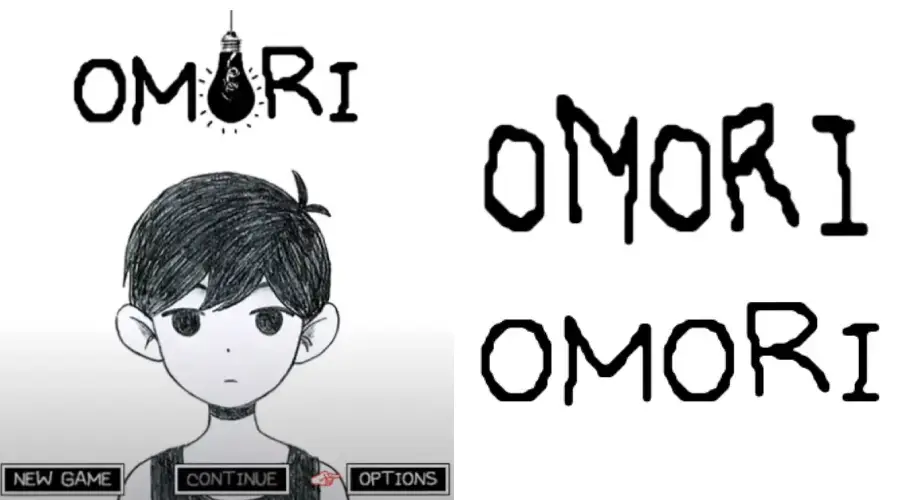
Quick answer: OMORI uses distinctive handwritten game lettering associated with OMOCAT’s visual identity. The OMORI-1 and OMORI-2 files in this preview reproduce two familiar in-game text moods, but game-bundled assets are not automatically open fonts for unrestricted commercial use.
The two styles serve different emotional purposes: one reads like casual handwritten dialogue, while the more unstable treatment supports darker scenes. That contrast is central to the game’s visual storytelling and is more useful than treating “the OMORI font” as a single neutral typeface.
Preview OMORI-1 and OMORI-2
Enter the same sentence in both styles. Compare readability, spacing, and emotional tone before choosing one; the darker style can become difficult to read in long passages or at small sizes.
How OMORI uses typography
OMOCAT’s official portfolio identifies OMORI as a game designed, written, illustrated, programmed, and produced by OMOCAT. The handwritten lettering fits that authored, illustrated world and helps text feel like part of the artwork rather than a generic interface layer.
The standard style works best for dialogue, captions, and friendly scenes. The distorted alternative is more effective as an occasional accent for fear, instability, or Black Space-inspired compositions. Using it everywhere removes the contrast that makes it powerful.
A note about the two OMORI font files
Original FreeFontsVault comparison using the two stored OMORI files and role-based labels.
OMORI-1
The clearer handwritten option for short dialogue, headings, and fan-made mockups. Keep line lengths modest because irregular handwritten spacing can tire readers in dense paragraphs.
OMORI-2
The more unsettling alternative for horror-oriented words or short effects. Use it sparingly and test every character because distortion can reduce legibility.
How to create an OMORI-style text panel
1. Choose OMORI-1 for normal dialogue or OMORI-2 for a deliberately unstable moment.
2. Use short sentences and a generous font size so the handwriting remains readable.
3. Try dark text on white for ordinary scenes and reversed or high-contrast colors for darker scenes.
4. Leave more line spacing than you would with a regular sans serif.
5. Export a test image and inspect punctuation, numbers, and uncommon characters before final use.
Frequently asked questions
What font does OMORI use?
OMORI uses custom handwritten game lettering. OMORI-1 and OMORI-2 reproduce two recognizable text moods used by the game community.
Why are there two OMORI fonts?
One style is clearer and friendlier, while the other is distorted for darker or more unsettling scenes.
Which OMORI font is easier to read?
OMORI-1 is generally better for dialogue and longer text. OMORI-2 works best for short dramatic accents.